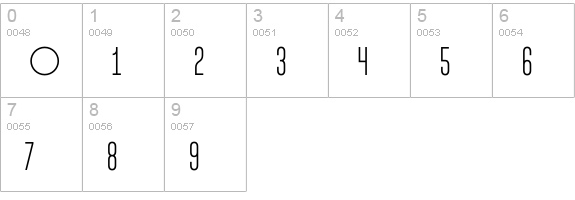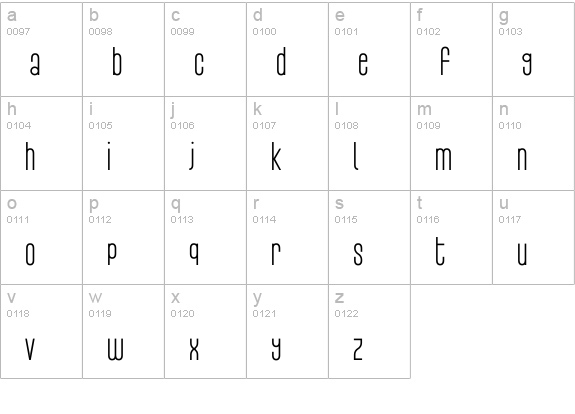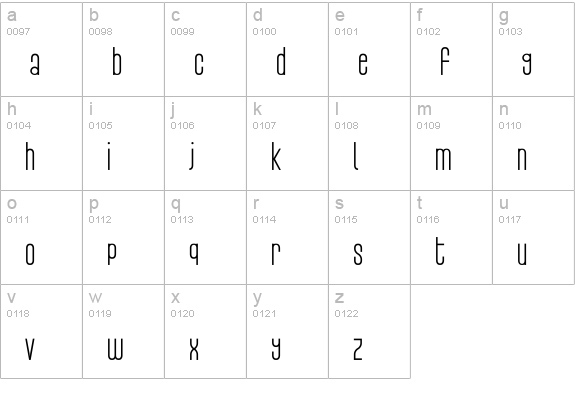
AdultometricProRegular Font Details
Introducing AdultometricProRegular font, a sleek and modern typeface designed to elevate your projects with its clean lines and professional look. This versatile font is perfect for a wide range of design applications, from branding and advertising to web design and print materials. AdultometricProRegular is a must-have addition to any designer's toolkit, offering a perfect balance of style and readability. Its timeless appeal makes it suitable for both digital and print projects, ensuring that your message is always conveyed with clarity and sophistication. Best of all, AdultometricProRegular font is available for free download at FontsMarket.com. Simply visit the website to access this top-quality font and enhance your designs with its elegant aesthetic. Let AdultometricProRegular font take your projects to the next level and make a lasting impression on your audience.